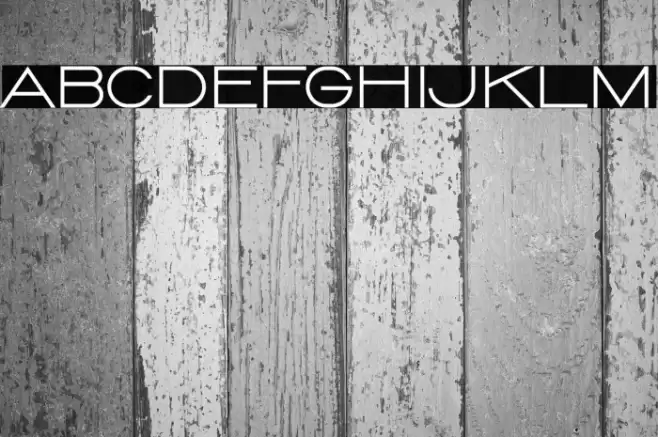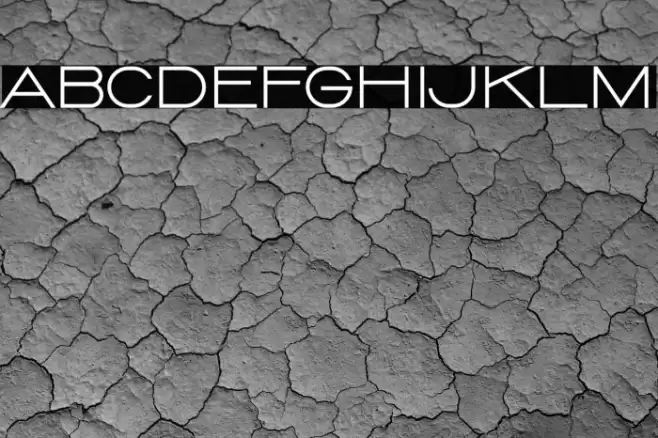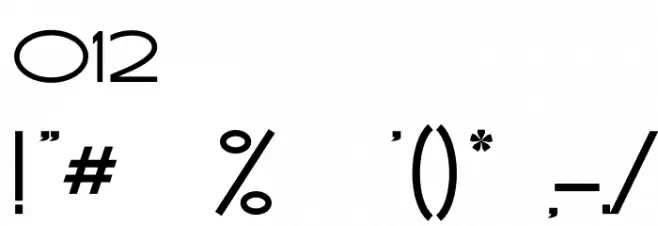
Ballado Font
Ballado Description
This font features a sleek and modern design with clean lines and a geometric structure. The uppercase letters are uniform in height, creating a harmonious and balanced appearance. The lowercase letters maintain a consistent style, with rounded edges that add a touch of softness to the overall look. The numerals are clear and easy to read, complementing the alphabet with their simple yet elegant form. Special characters are designed with the same attention to detail, ensuring they fit seamlessly with the rest of the font. The overall impression is one of sophistication and contemporary style, making it suitable for a variety of design projects.
A sleek, modern font with geometric lines and rounded edges from Uncategorized fonts.